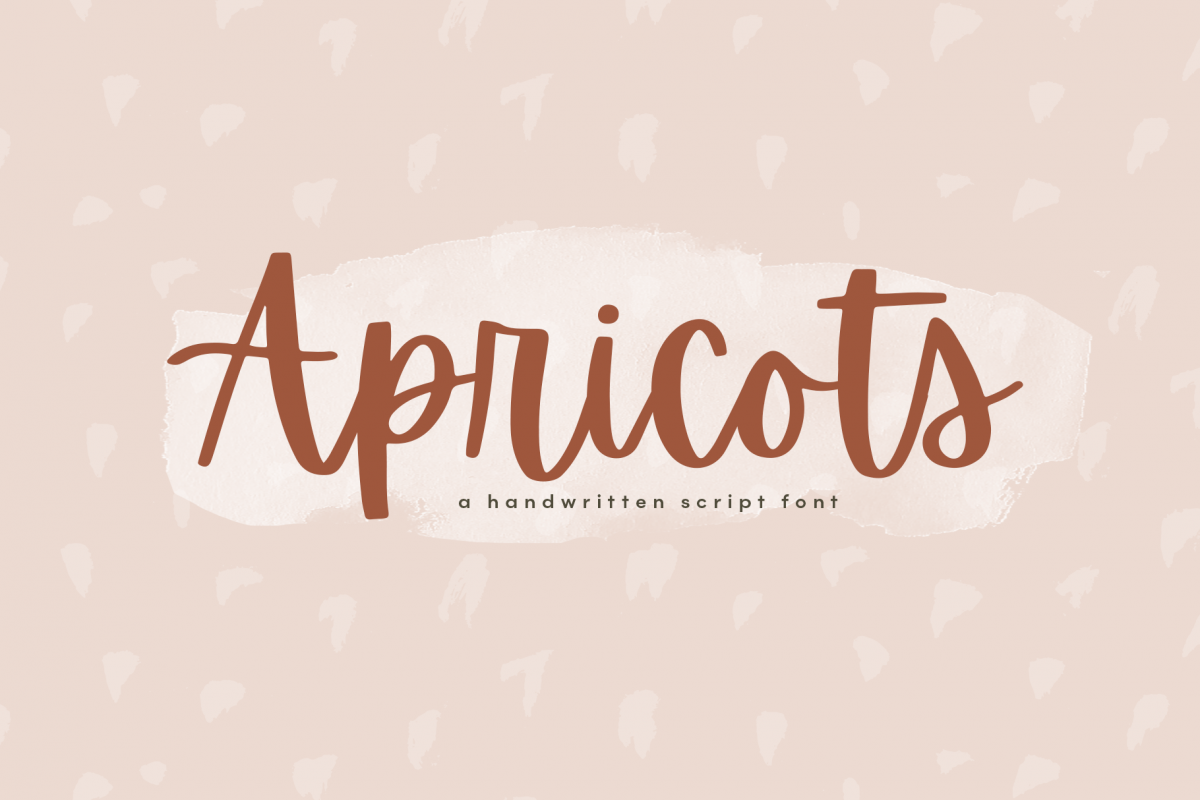
Apricots - Handwritten Script Font
Apricots
Apricots is handwritten font with a modern calligraphy feel.
Apricots is perfect for modern projects, headings, blogs, logos, brandings, invitations and more!